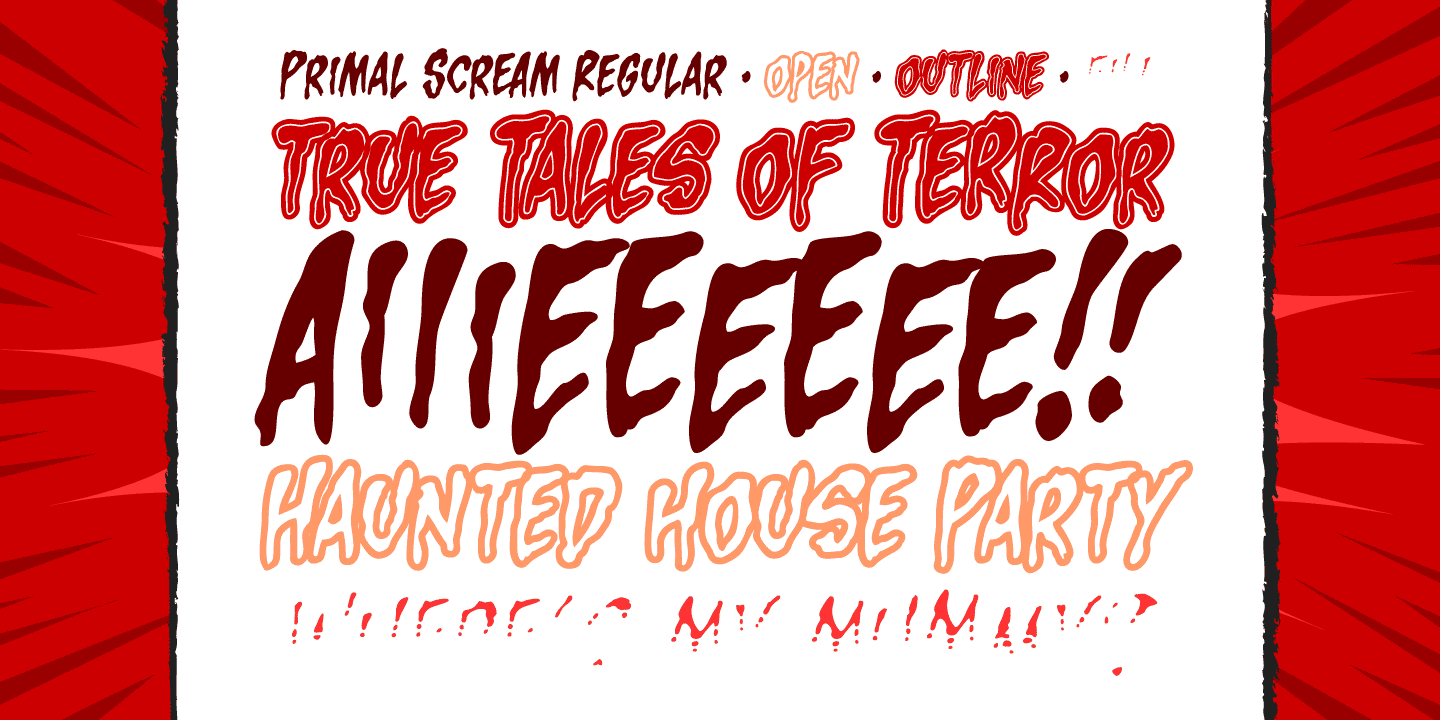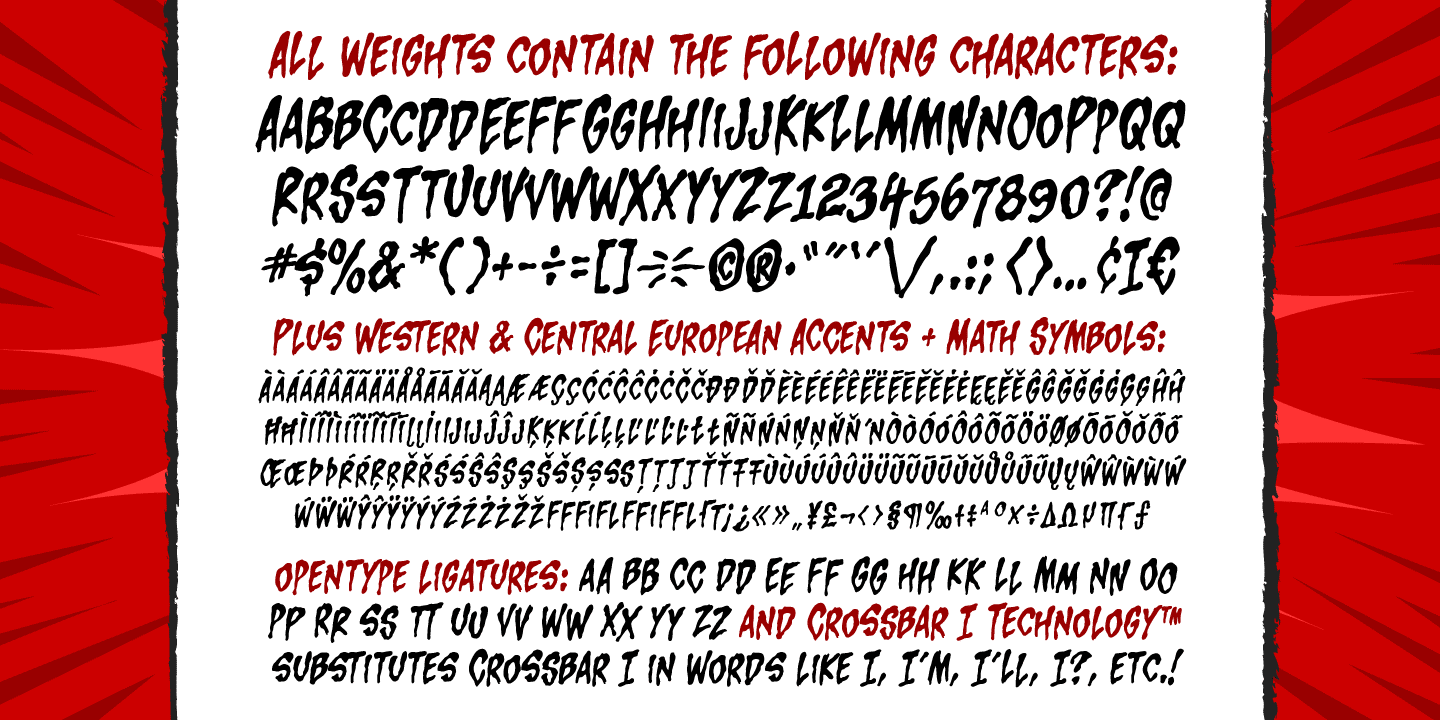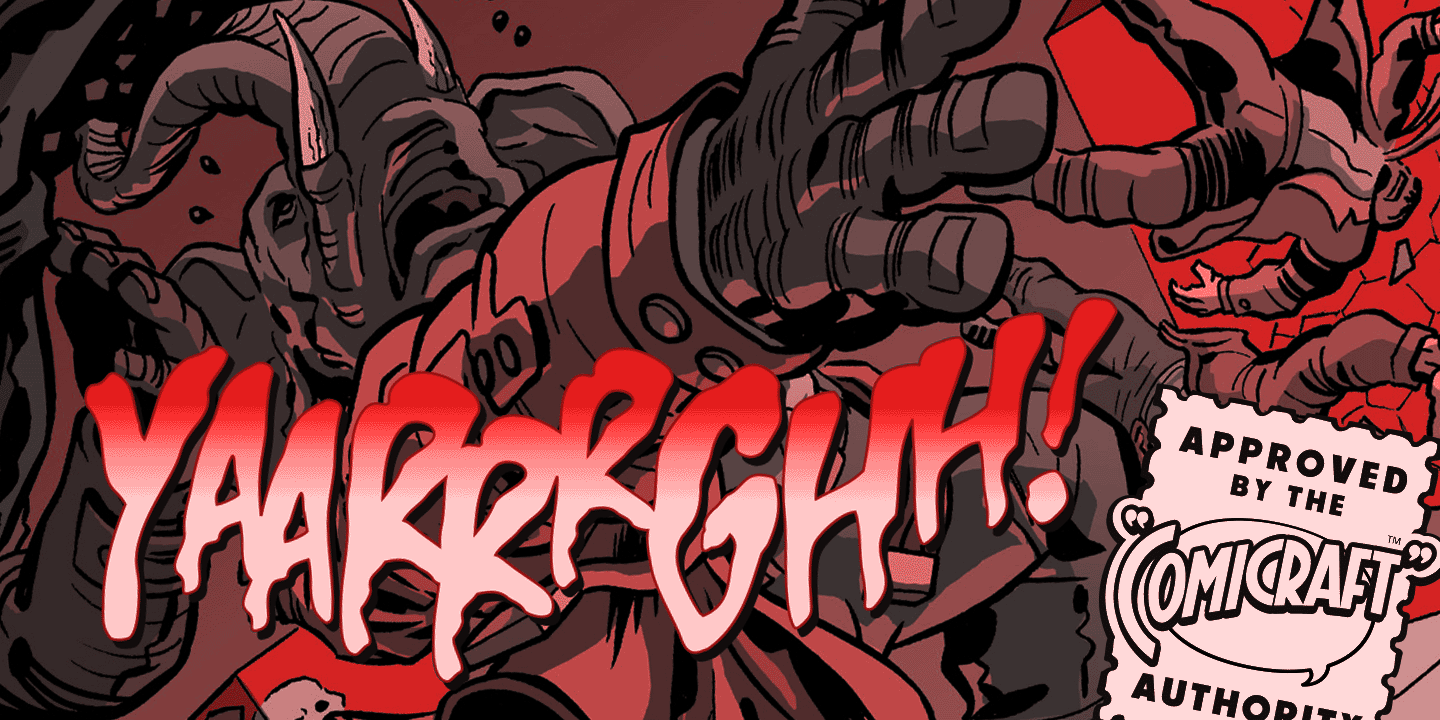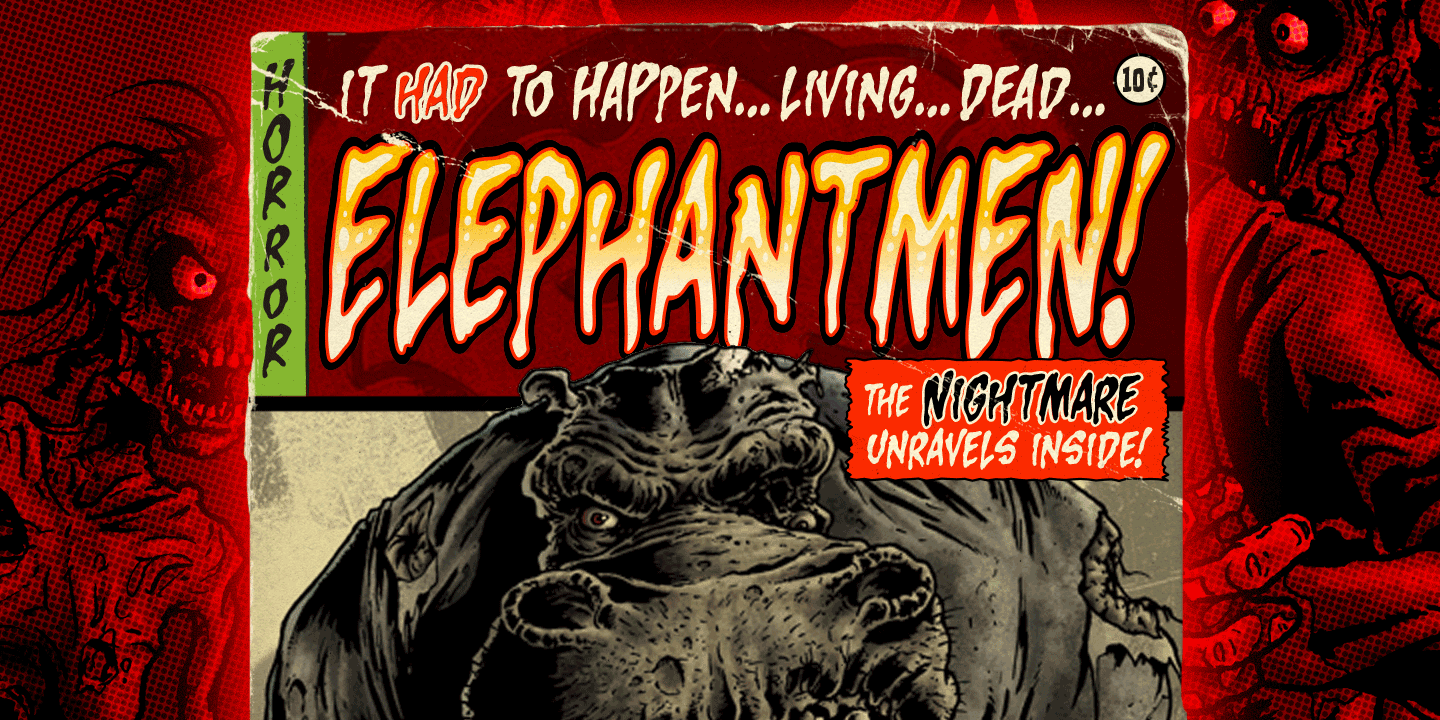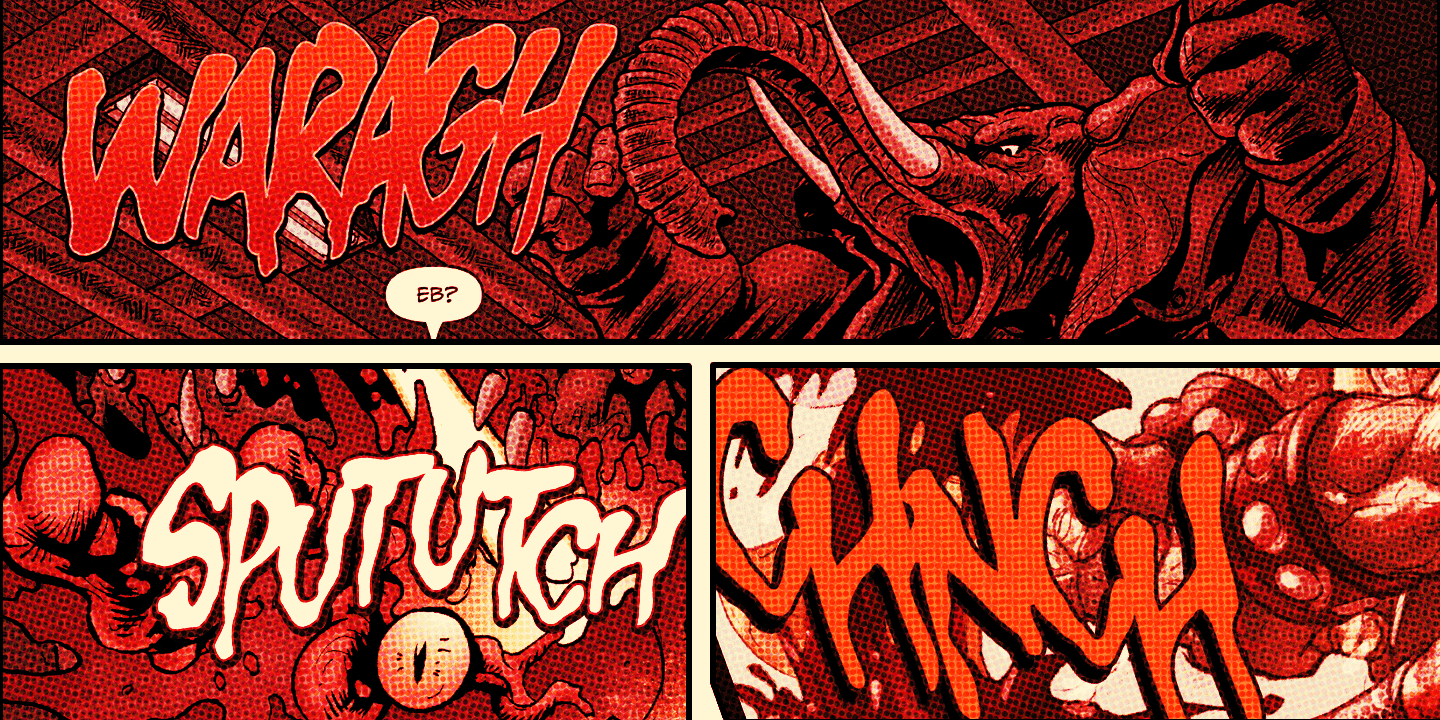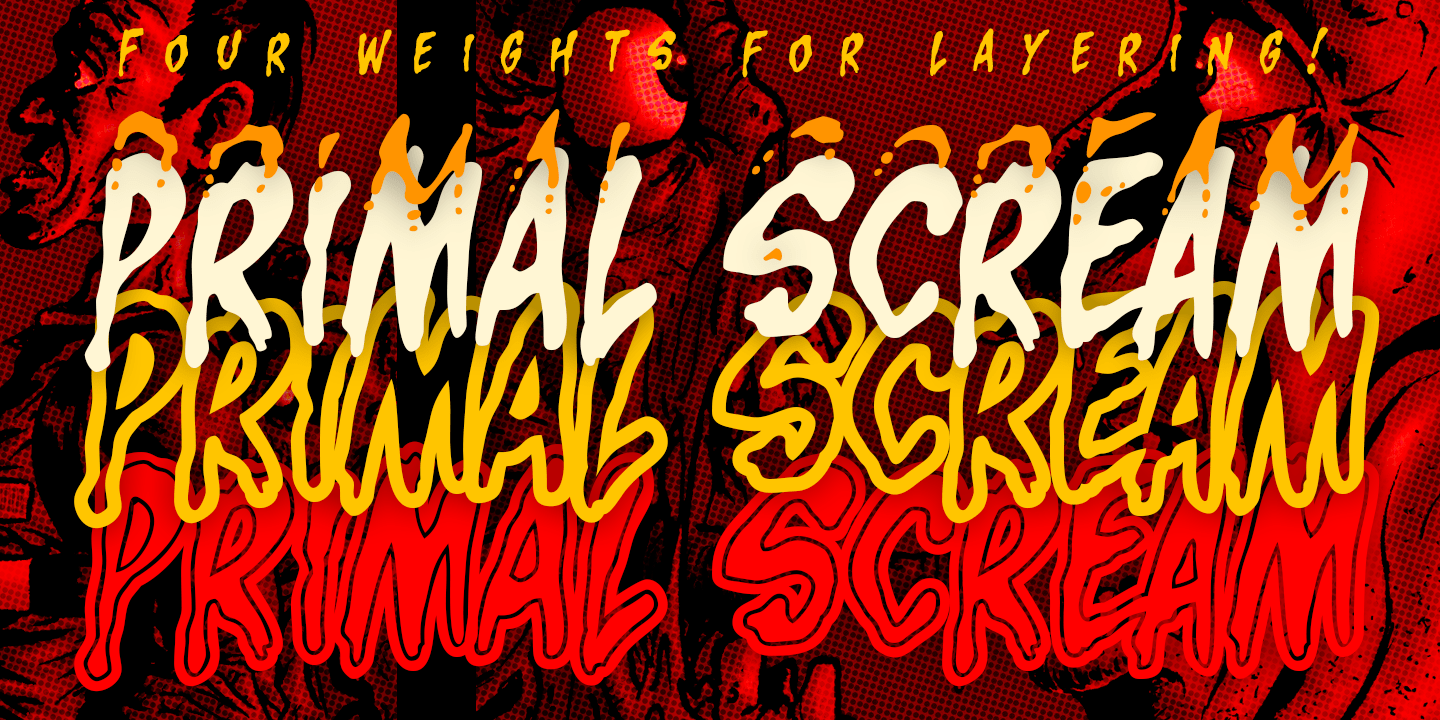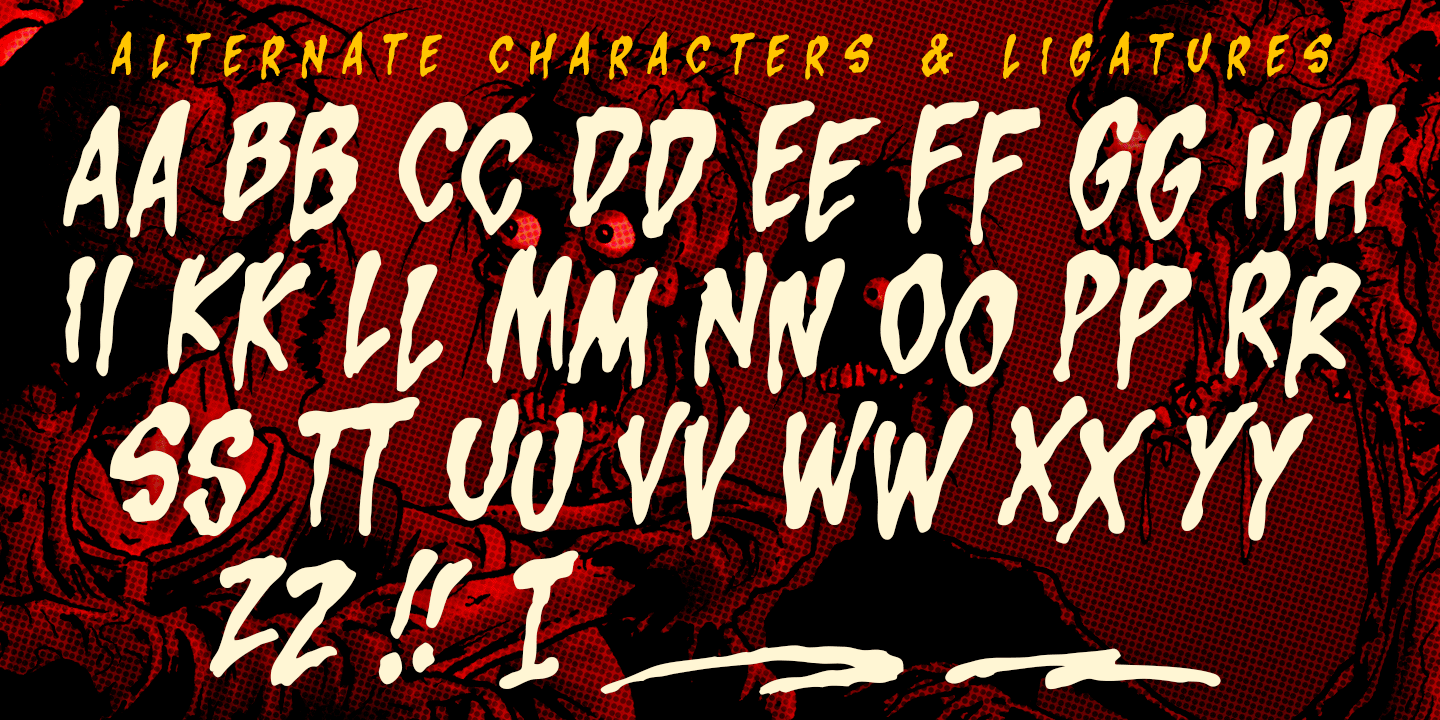
Primal Scream
Some years ago, the dedicated craftsmen at Comicraft heard something that was to change the course of their professional lives and the comic books they lettered. What was heard then may change the nature of typography as it is now -- an eerie, unearthly scream welling up from the depths of a young and handsome Richard Starkings as he lay on the floor following a late-night lettering session. We can liken it only to what one might hear from a person experiencing their soul being torn from their body. There was ink spilled everywhere. The resulting letterforms were converted into a font for neurotic letterers the world over: Primal Scream.